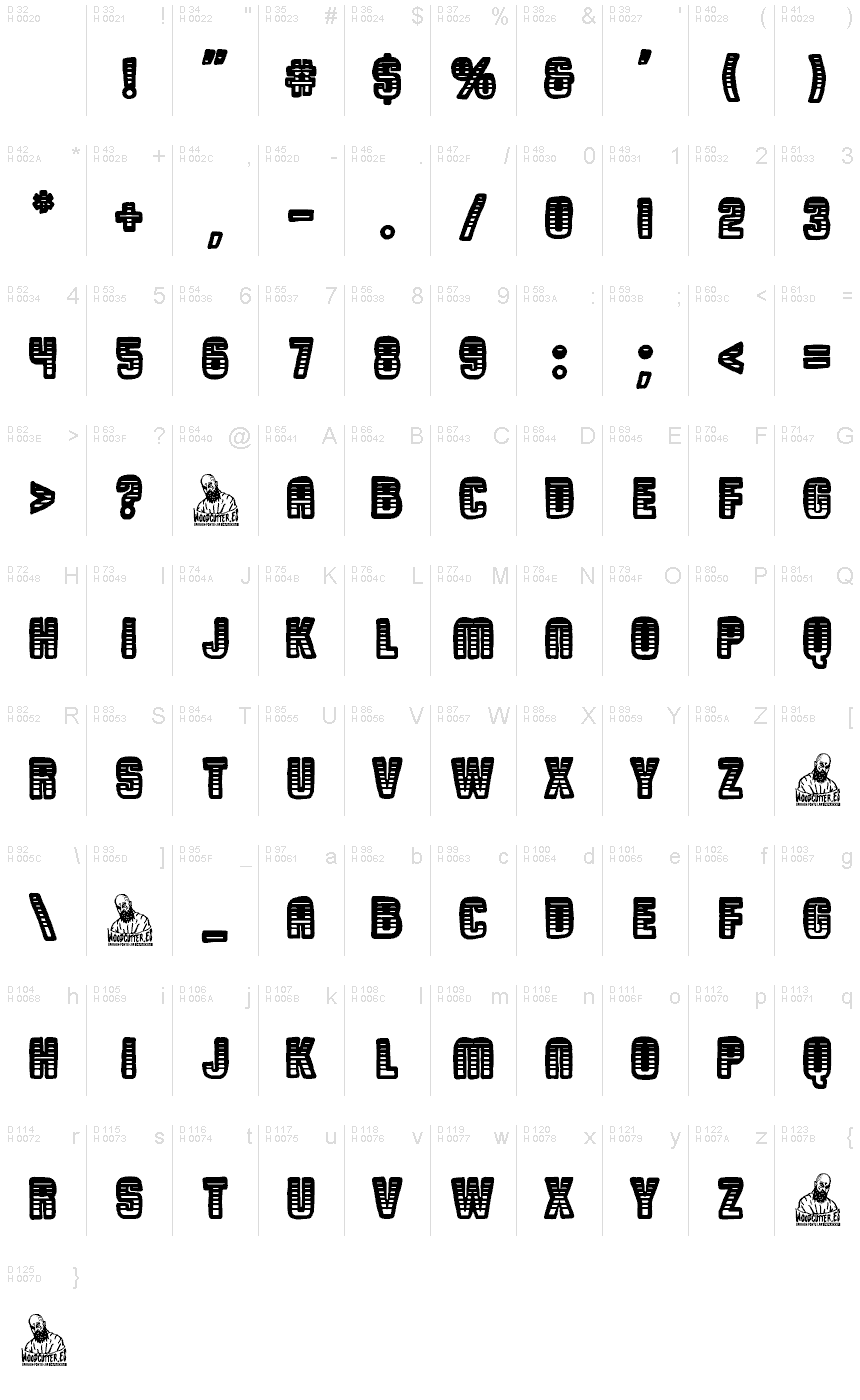
Touristic Chaos
Introducing Touristic Chaos, a condensed display font with bold characters that instantly grab your attention. Touristic Chaos offers a set of uppercase letters and numbers that are designed to look like airplane tickets. This font designed by Woodcutter is perfect for designing posters and brochures, or using in social media posts to generate likes.